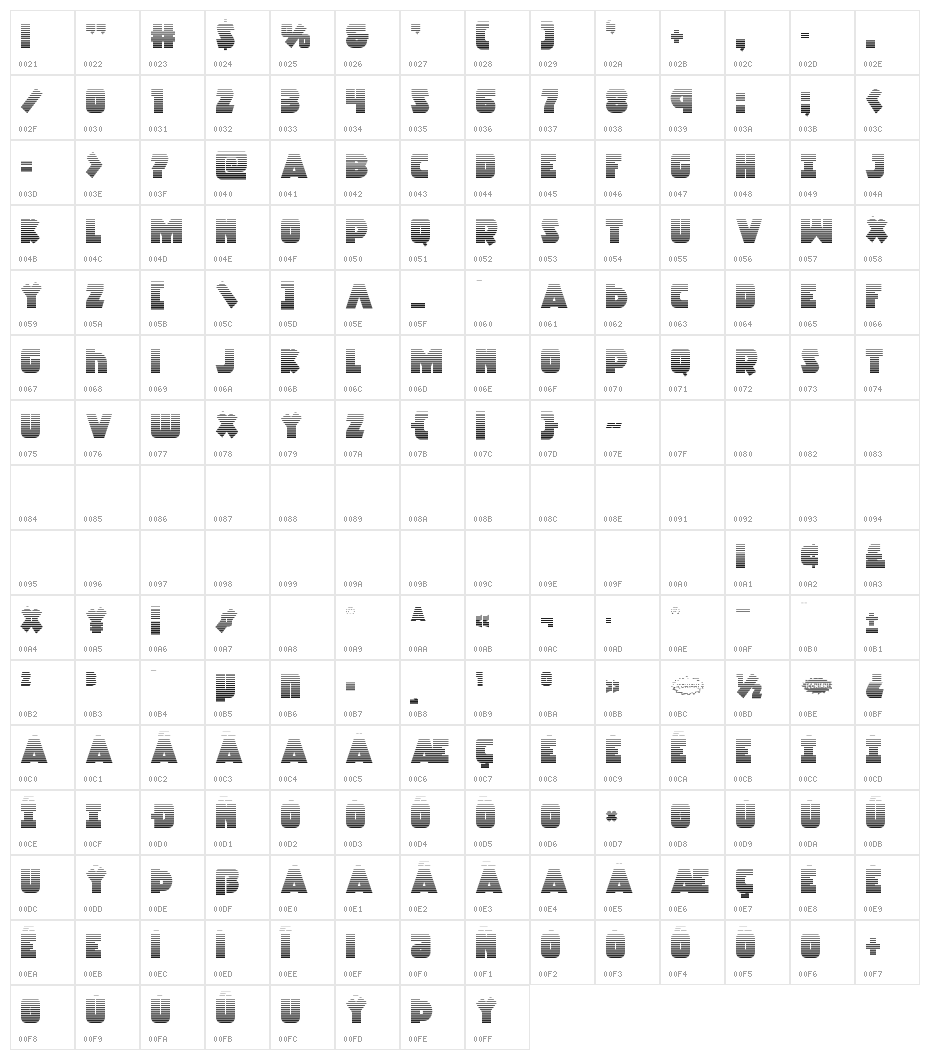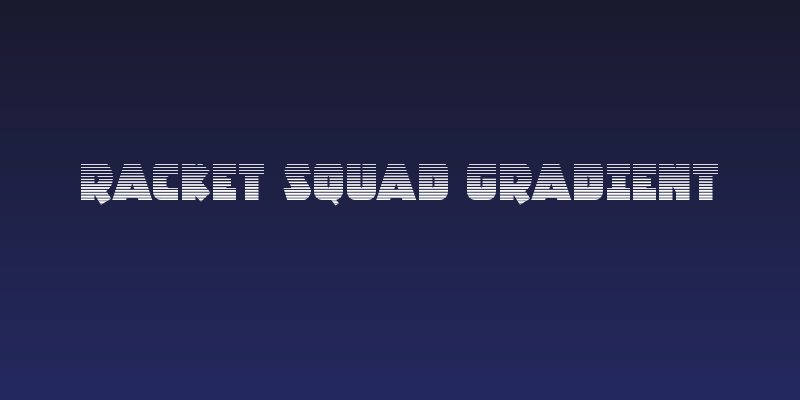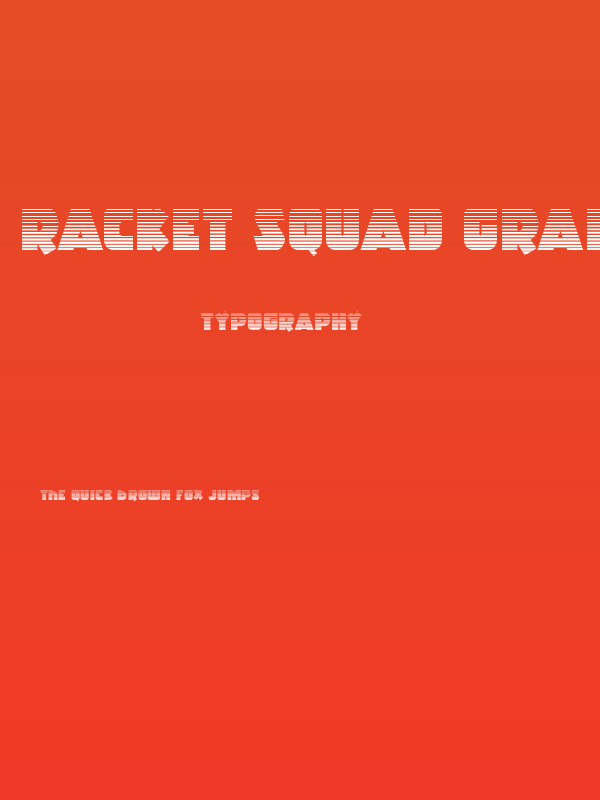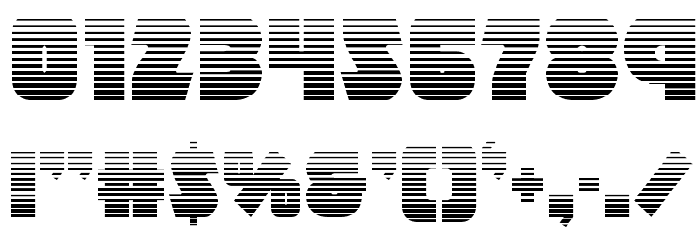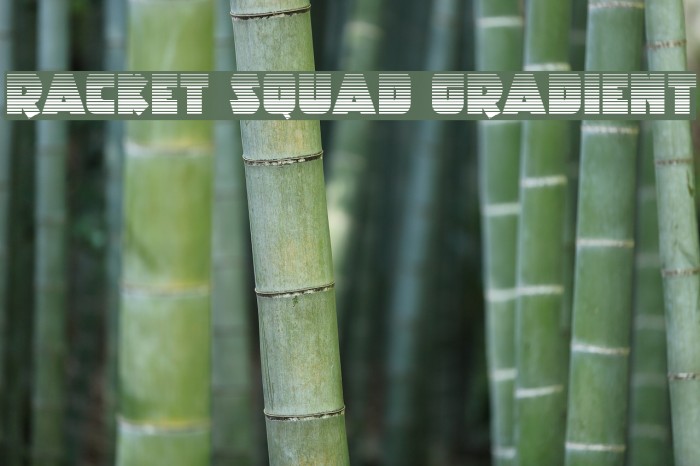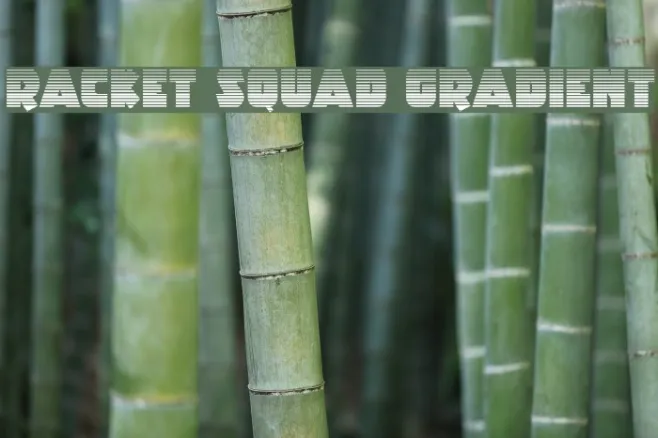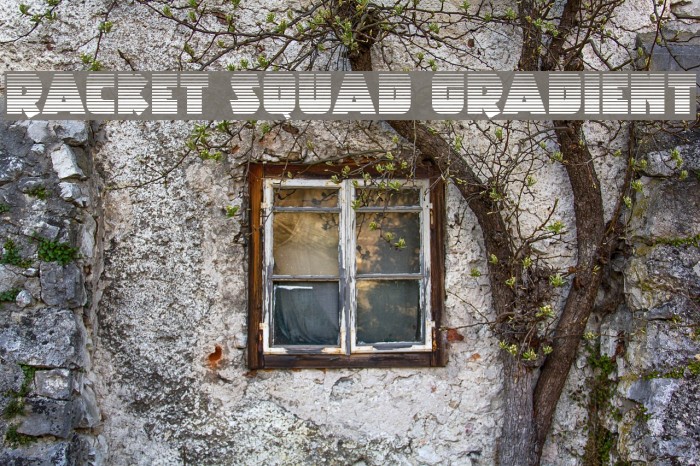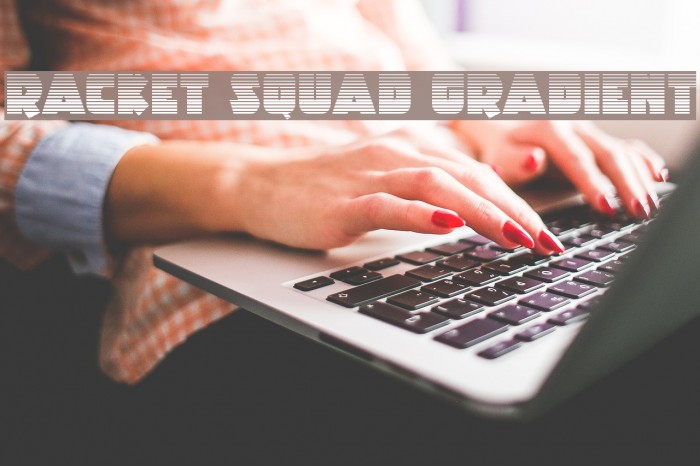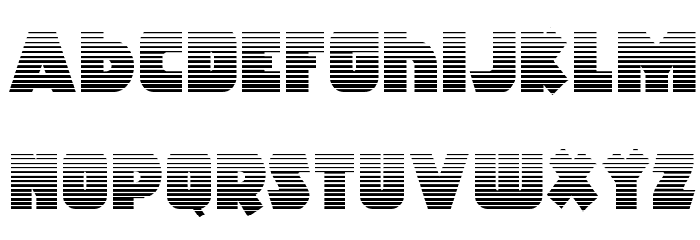
Racket Squad Gradient Font
Racket Squad Gradient Description
This font features a bold, modern design with a unique striped pattern that gives each character a dynamic and futuristic appearance. The uppercase and lowercase letters, along with numbers and special characters, are all designed with horizontal lines that create a gradient effect. This style is eye-catching and ideal for projects that require a strong visual impact. The font's geometric structure and uniform line thickness contribute to its contemporary and innovative look, making it suitable for tech-related themes or creative branding.
| Proposed Projects | Ideal for tech branding, futuristic posters, digital art, and modern advertising campaigns. |